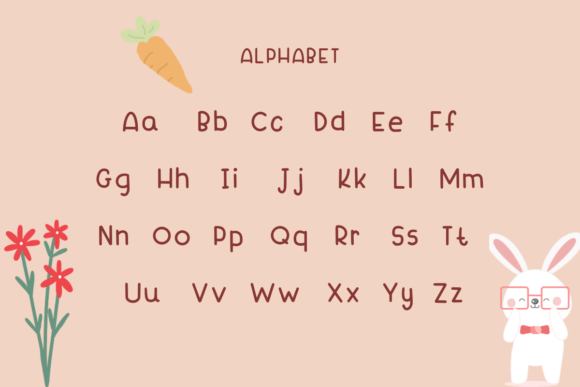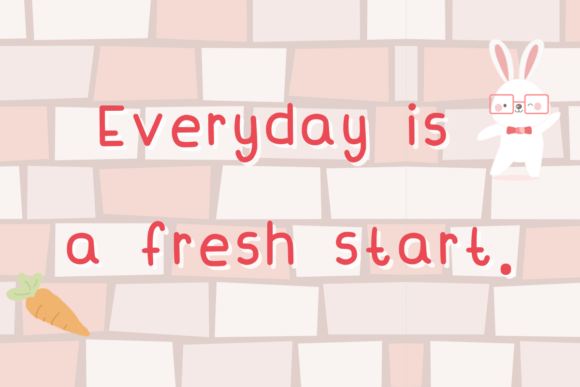
White Rabbit Font
About White Rabbit Font
White Rabbitfont is a cute and fun handwritten typeface designed to bring a friendly and approachable vibe to your creative projects. Its simple yet charming style makes it incredibly flexible, suitable for a wide variety of design contexts. Whether you’re working on invitations, social media graphics, branding, or personal crafts, White Rabbit adds a playful touch that helps your work stand out.
Friendly and Simple Handwritten Style
The charm of White Rabbit lies in its easygoing and clean handwritten look. It feels casual but polished, combining the warmth of handwriting with a neat and simple design. This makes it perfect for projects that need a genuine, human touch without feeling overly elaborate.
Versatility Across Creative Projects
This font adapts well to many creative uses. Whether you are designing greeting cards, posters, logos, or even digital content like blog headers and social media posts, White Rabbit offers a flexible and trendy option. Its friendly personality fits both professional and casual projects, making it a go-to choice for designers seeking a fun but versatile font.
Explore Endless Variations
White Rabbit encourages creative freedom. Its design allows you to play with different layouts and styles while maintaining consistency and clarity. Use it to add personality and energy to your text, making every project feel unique and inviting.
Why Choose White Rabbit Font?
With its fun and simple handwritten style, White Rabbitfont stands out as a flexible and charming choice. It balances friendliness with professionalism, making it suitable for a wide audience. Add White Rabbit to yourfont collection and watch your creative ideas come alive with warmth and style.